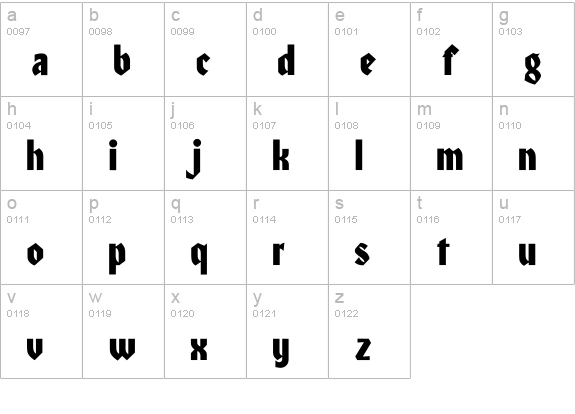
Heidelberg-Normal Font Details
Heidelberg-Normal is the standard, neutral variant in the Heidelberg typeface family \xE2\x80\x94 well suited to general body text, paragraphs, and standard typographic work.
Heidelberg-Normal font is a modern and versatile typeface that exudes elegance and sophistication. With its clean and crisp lines, this font is perfect for both digital and print designs. Whether you are creating a logo, designing a website, or crafting a professional document, Heidelberg-Normal font will effortlessly enhance your project. This font features a balanced blend of classic and contemporary characteristics, making it suitable for a wide range of design styles. Its timeless appeal makes it ideal for both formal and casual applications. The letters are meticulously crafted, ensuring legibility and readability at any size. One of the most remarkable aspects of Heidelberg-Normal font is that it is available for free download. You can easily access this font at FontsMarket.com, a trusted source for high-quality fonts. The fact that it is freely available makes it an excellent choice for both personal and commercial projects, without any budget constraints. Heidelberg-Normal font offers a comprehensive character set, including uppercase and lowercase letters, numbers, symbols, and punctuation marks. Additionally, it supports multiple languages, making it a versatile choice for global design projects. Whether you are a professional designer or a typography enthusiast, Heidelberg-Normal font will undoubtedly captivate you with its refined aesthetics and exceptional quality. Download it for free from FontsMarket.com today and elevate your designs to new heights of sophistication and style.